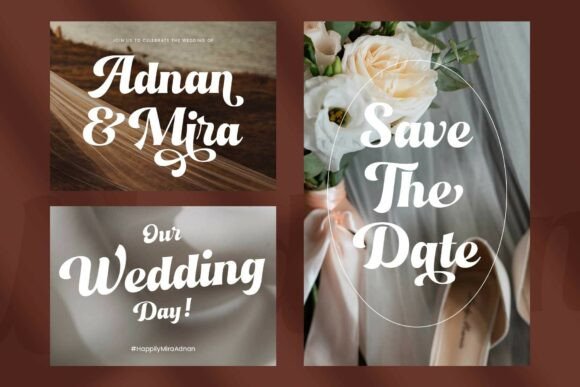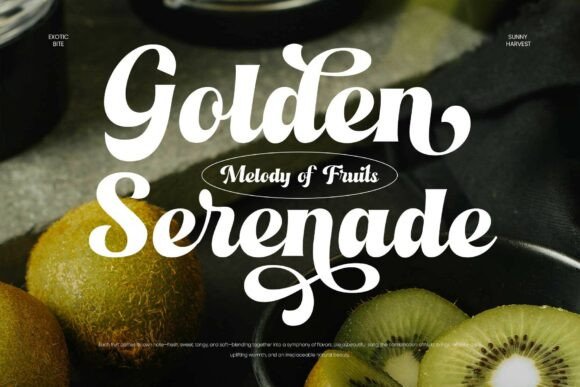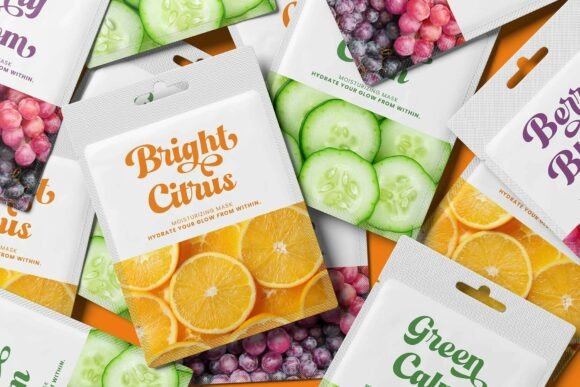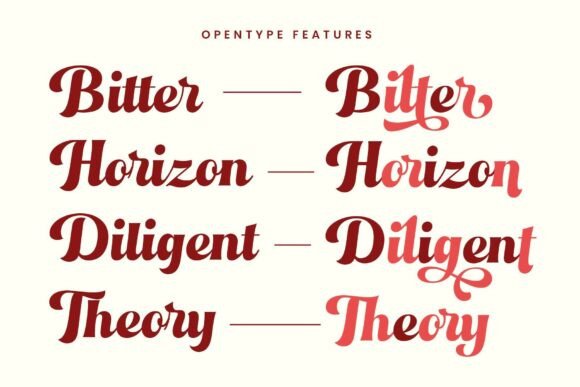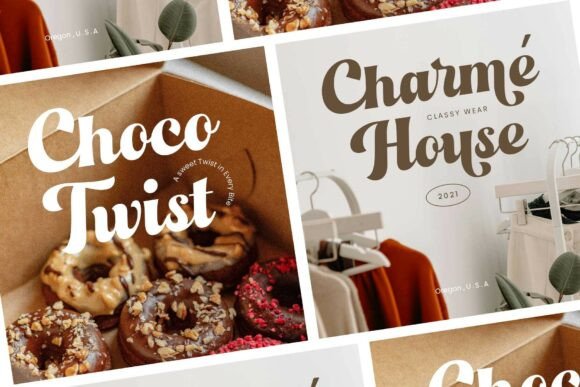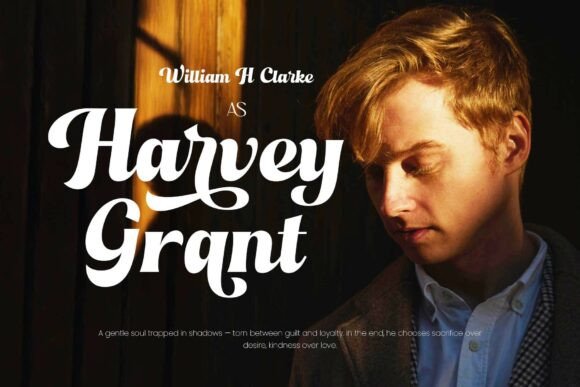
Unleashing the Power of Hendika Font
Remember the moment when you’re working on a creative project, and the right font can make all the difference? You’ve spent hours perfecting your design, but something’s missing. That’s where the Hendika Font comes in – a game-changer for designers looking to add a touch of elegance and sophistication to their work.
With its bold, modern brush design, the Hendika Font is an ideal choice for making a statement. Its thick, fluid strokes and subtle “ink-on-paper” feel give your text an immediate sense of gravity and personality, ensuring maximum impact in any creative project. Whether you’re designing bold product packaging, energetic sports branding, or eye-catching restaurant logos, the Hendika Font is a valuable resource that’s sure to elevate your design to the next level.
As a high-quality design resource, the Hendika Font is perfect for designers who want to add a professional polish to their work while still maintaining a touch of artistic freedom. Plus, with its transparent background, you can easily pair it with vibrant street photography or gritty textures to create a contemporary urban look that’s sure to grab attention.
Key Features of Hendika Font
- High-quality design for creative projects: Hendika Font is perfect for designers who want to add a unique touch to their work.
- Transparent background: This feature allows for seamless integration with any background, making it ideal for designers who want flexibility.
- High-resolution design: With a resolution of 300 DPI, Hendika Font is suitable for both print and digital designs.
- Unique, hand-drawn style: Hendika Font’s distinctive, hand-drawn design sets it apart from other fonts and adds a personal touch to any project.
Honest Review: Hendika Font
I recently came across the Hendika Font while searching for high-quality design resources for a creative project. I was excited to give it a try, and here’s my honest review.
What works well: ✨ The Hendika Font is incredibly versatile and can be used for a wide range of designs, from logos to posters. The font is well-designed, with clean lines and a modern aesthetic that makes it perfect for creative projects. I also appreciate that it’s available for free download, making it an excellent resource for designers on a budget.
What doesn’t work well: ⚠️ One of the limitations of the Hendika Font is that it’s not suitable for use in situations where a transparent background is required. Additionally, the font may not be as customizable as some other design resources.
Overall, I’m impressed with the Hendika Font and would recommend it to designers looking for a high-quality, free download for their creative projects. With its modern aesthetic and versatility, it’s an excellent addition to any design resource library.
- Perfect for logos, posters, and other creative projects
- Well-designed with clean lines and a modern aesthetic
- Not suitable for use with transparent background
- May not be as customizable as other design resources
Hendika Font
Tips for Getting the Most Out of Hendika Font
Here are some tips for getting the most out of the Hendika Font:
- Experiment with different font sizes and styles to create a unique visual effect.
- Combine the Hendika Font with other design elements, such as shapes and icons, to create a cohesive visual identity.
- Use the font in a variety of creative projects, from social media graphics to business presentations.
The Hendika Font is perfect for:
- Social media graphics and posts.